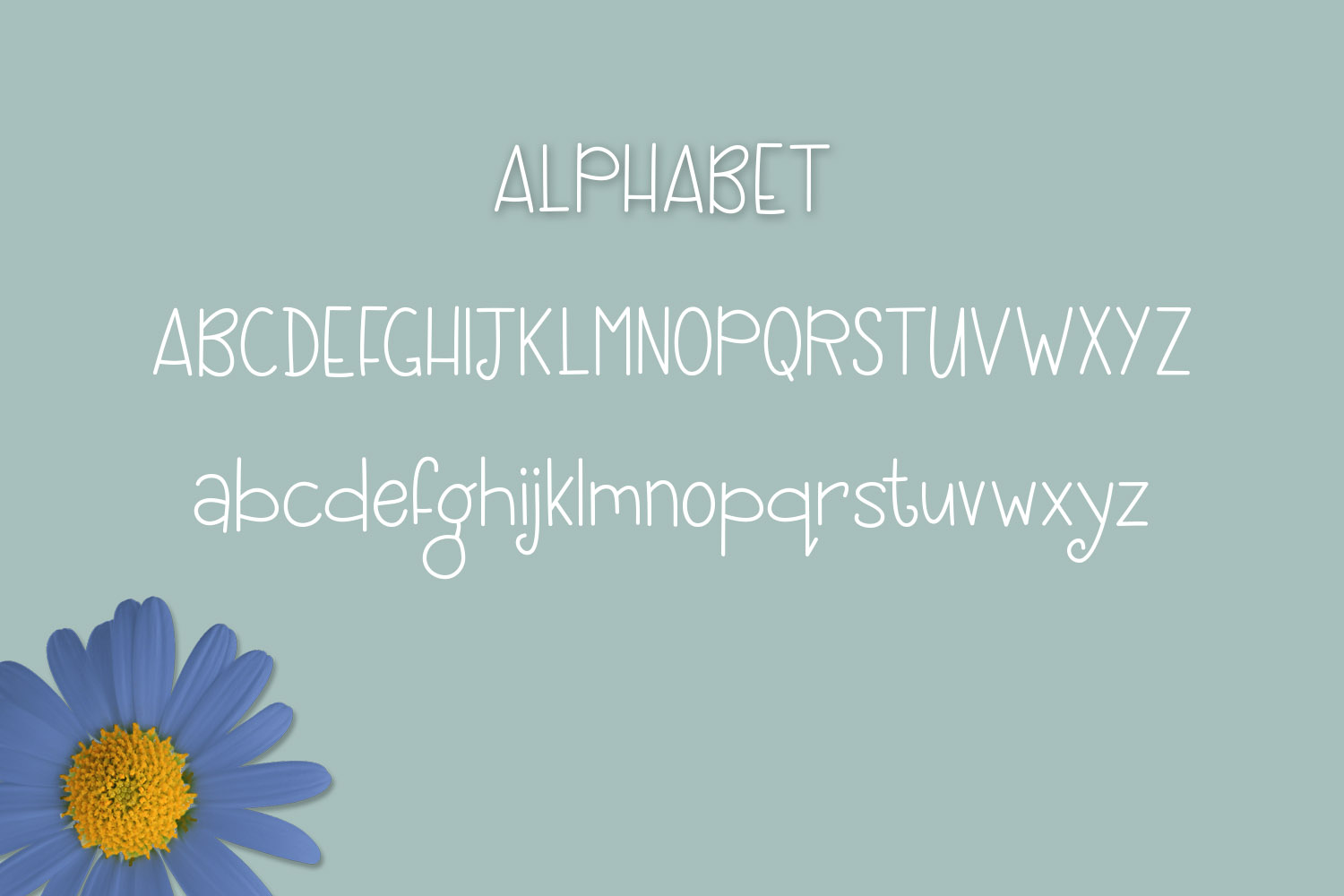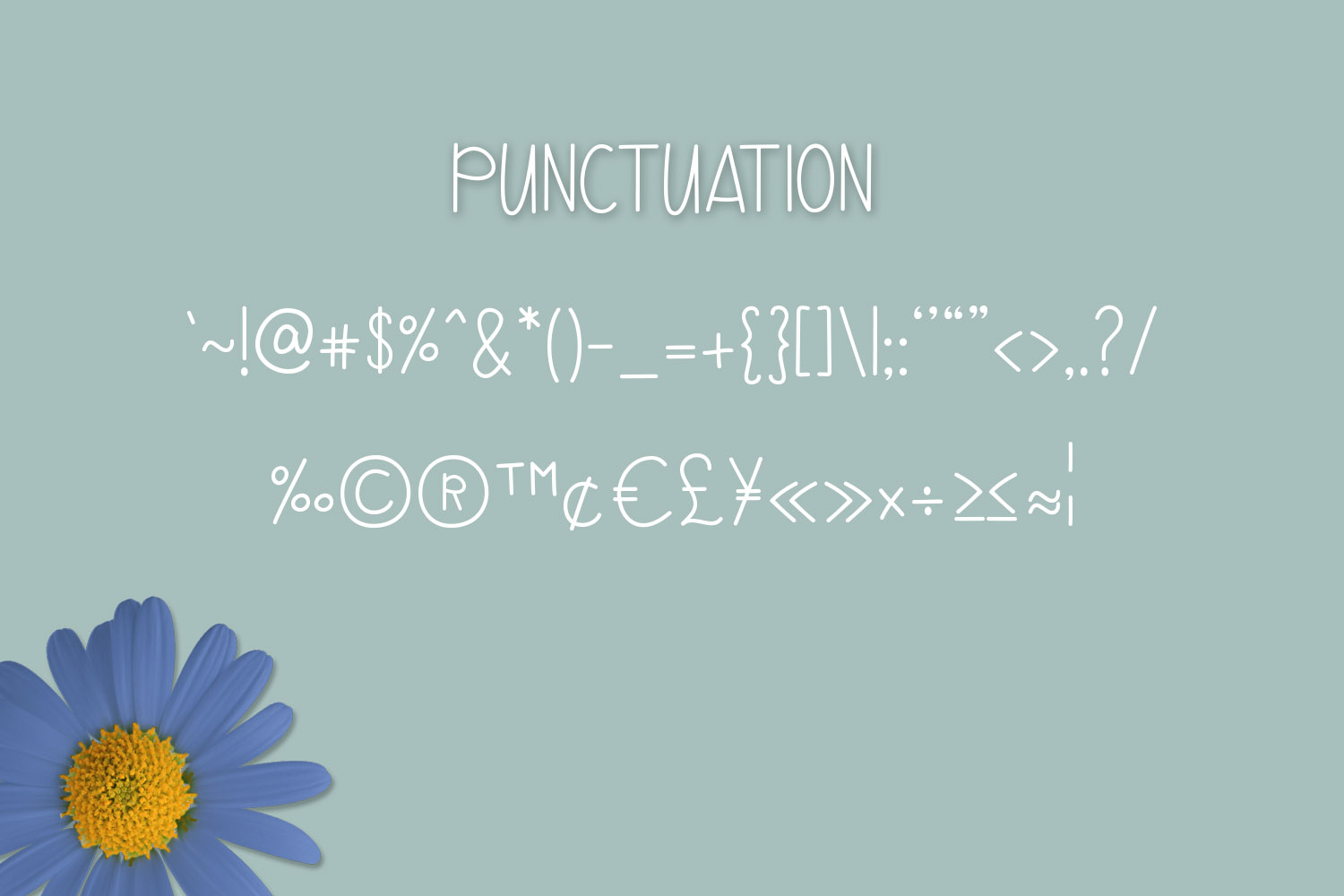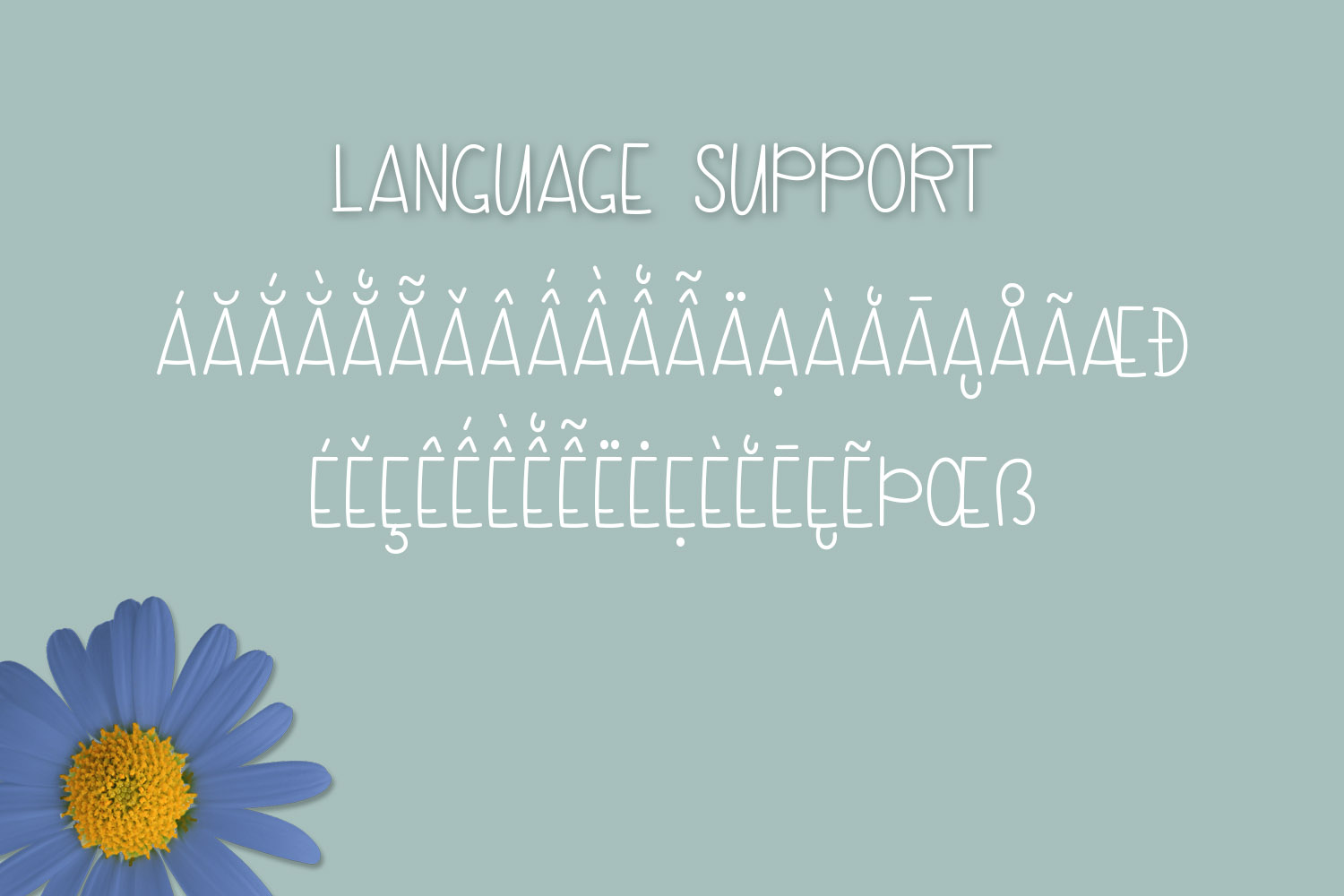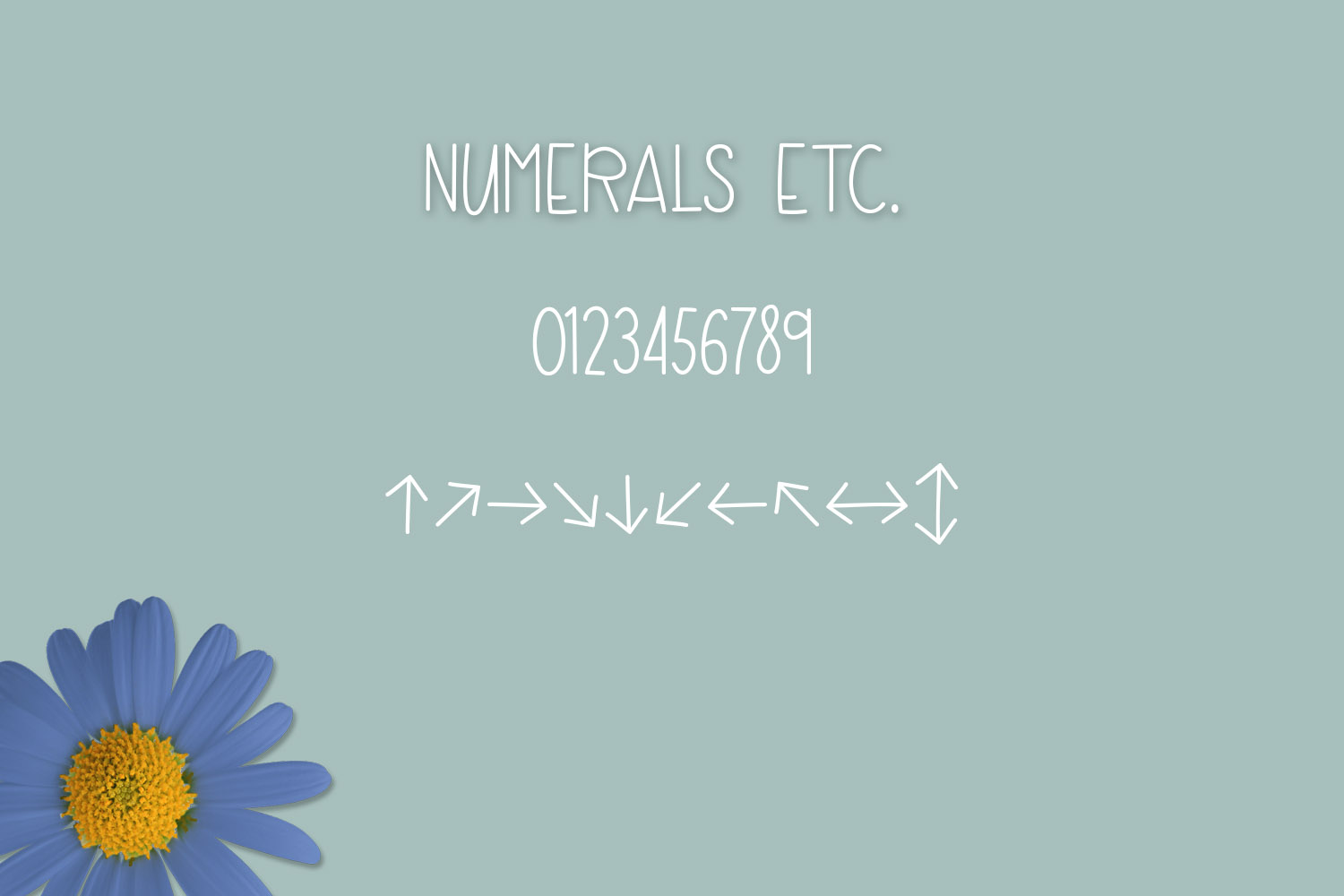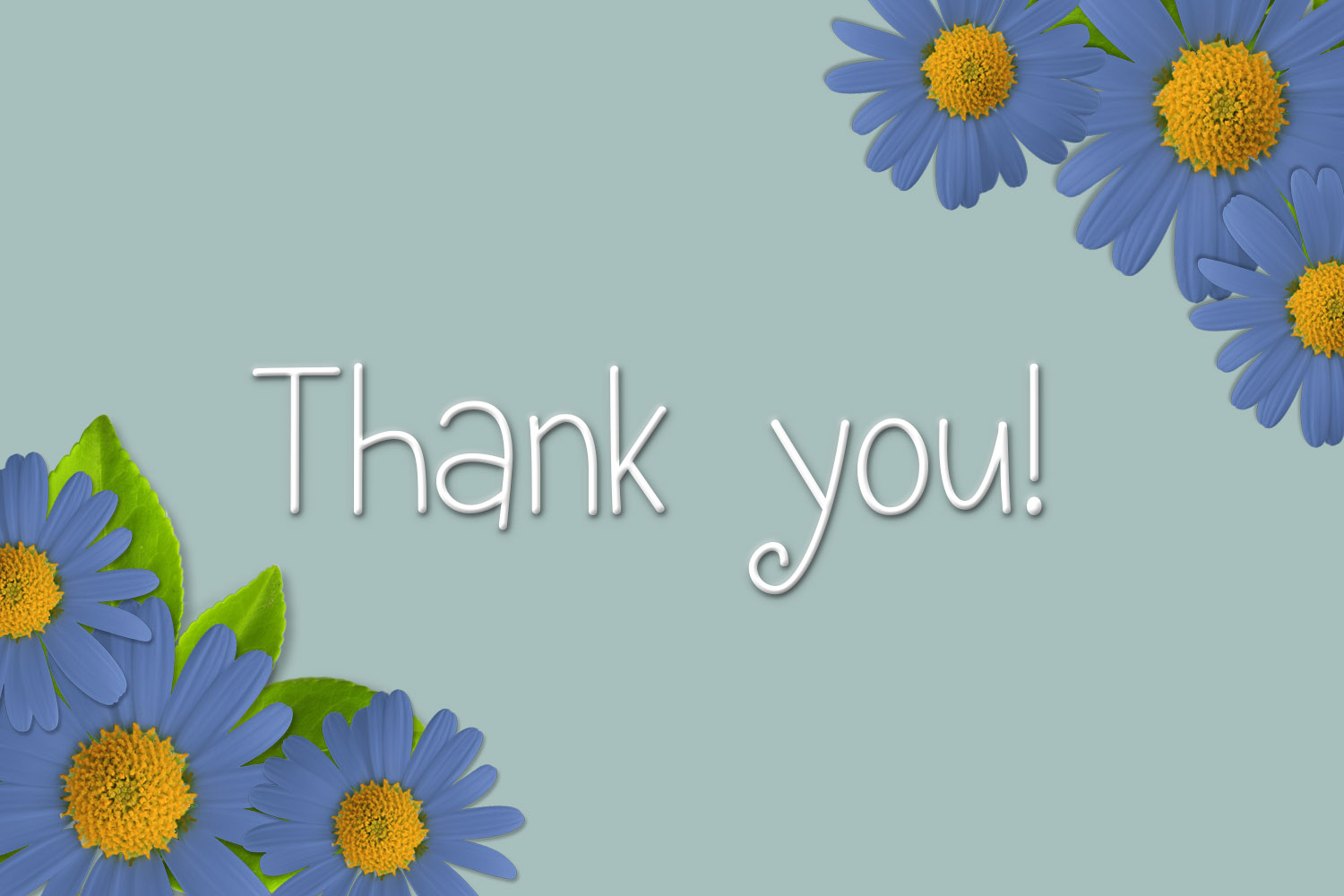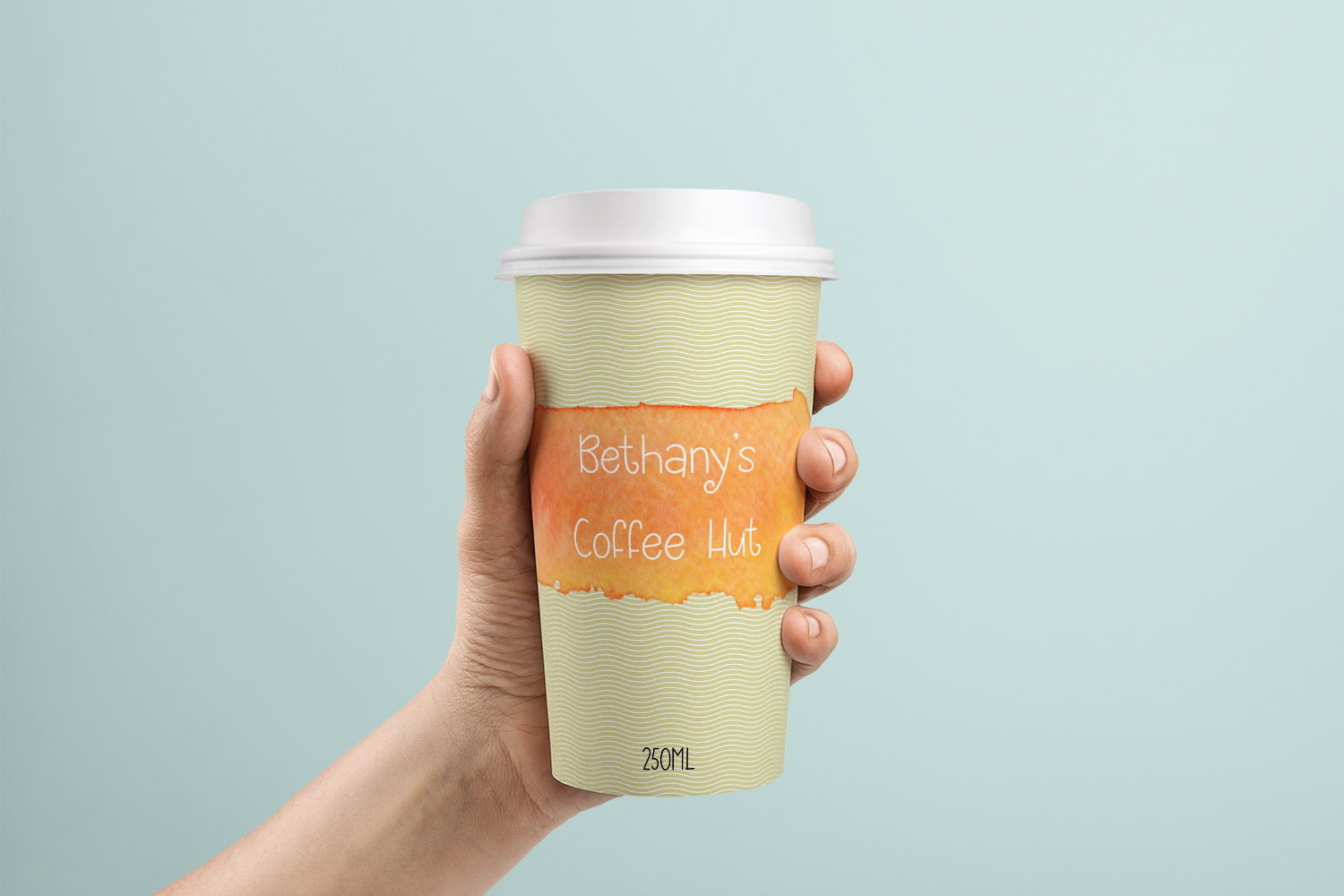
Blue Daisy Font
About Blue Daisy Font
Blue Daisy is a thin and quirky handwritten font. Add some fun to your design with ease using this clean and contemporary sans serif font!